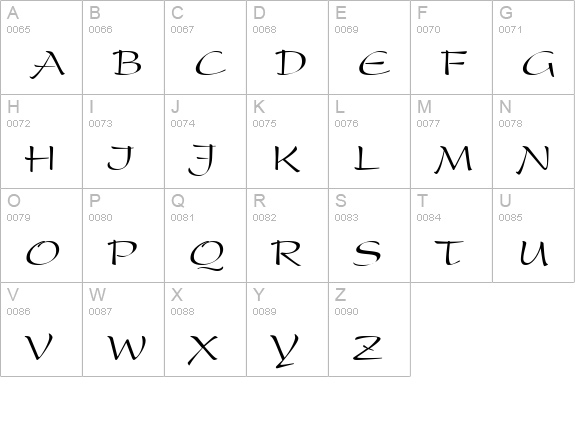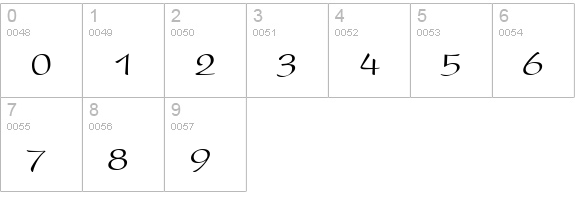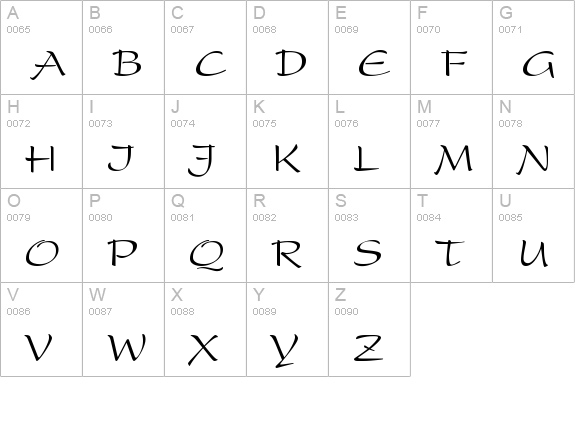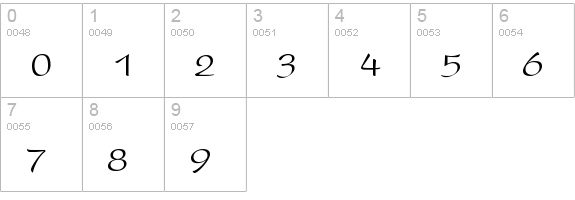
Hansa Font Details
Hansa font is a beautifully crafted typeface that exudes an air of elegance and sophistication. Its unique design combines classic elements with a modern twist, making it the perfect choice for any project that requires a touch of refinement. This versatile font is meticulously designed to ensure readability and clarity, whether used for body text or headlines. The clean and well-defined lines of Hansa font give it a sleek and professional appearance, making it suitable for a wide range of applications, from branding and advertising to editorial and web design. What sets Hansa font apart is not just its impeccable design, but also its accessibility. It is freely available to download at FontsMarket.com, making it an excellent option for designers and creatives on a budget. Whether you're a student working on a school project or a professional designer looking to add a touch of class to your next endeavor, Hansa font is the ideal choice. With its extensive character set and multiple weights, Hansa font offers endless possibilities for creative expression. Its versatility allows it to adapt seamlessly to any design concept, ensuring that your message is conveyed with clarity and style. Download Hansa font today from FontsMarket.com and unleash your creativity with this exceptional typeface. Whether you're designing a logo, creating a print advertisement, or building a website, Hansa font will elevate your project to new heights. Experience the freedom of a high-quality font that doesn't compromise on style.